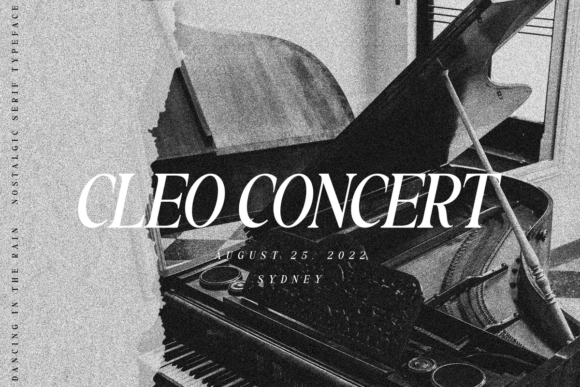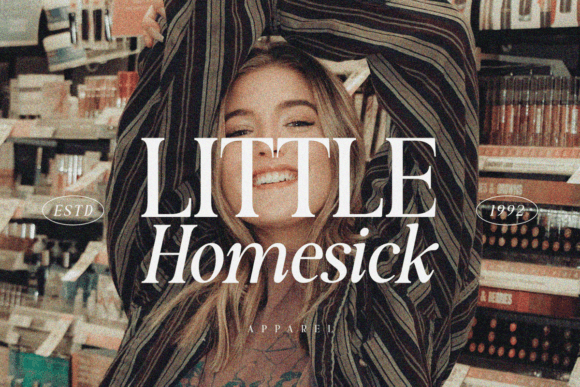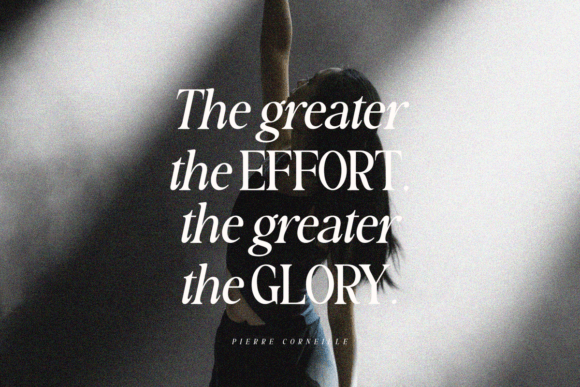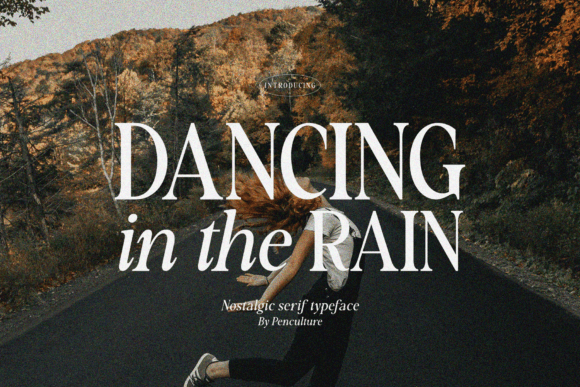
Dancing in the Rain Font
Dancing in the rain is a simply nostalgic serif font that will always remind us of the 80s and 90s. This font has a smooth curve in both the regular and italic versions.
This font can be used for both headlines and body text. You can also apply it for various other needs such as fashion, skincare, and much more.